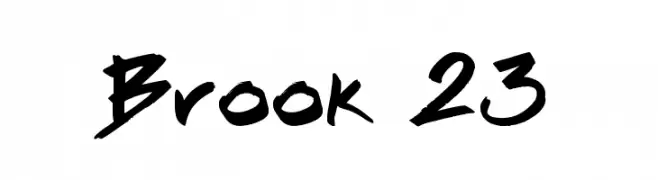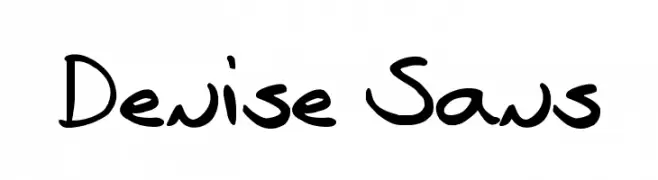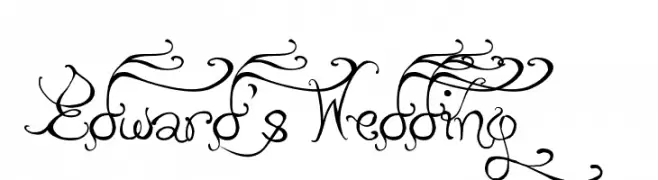
A playful, casual handwritten font with smooth, flowing lines.
A bold, handwritten font with an energetic and playful style.
A playful, handwritten font with dynamic strokes and a casual style.
An ornate and decorative script font with elaborate swirls and flourishes.
A casual, playful handwriting-style font with rounded characters.